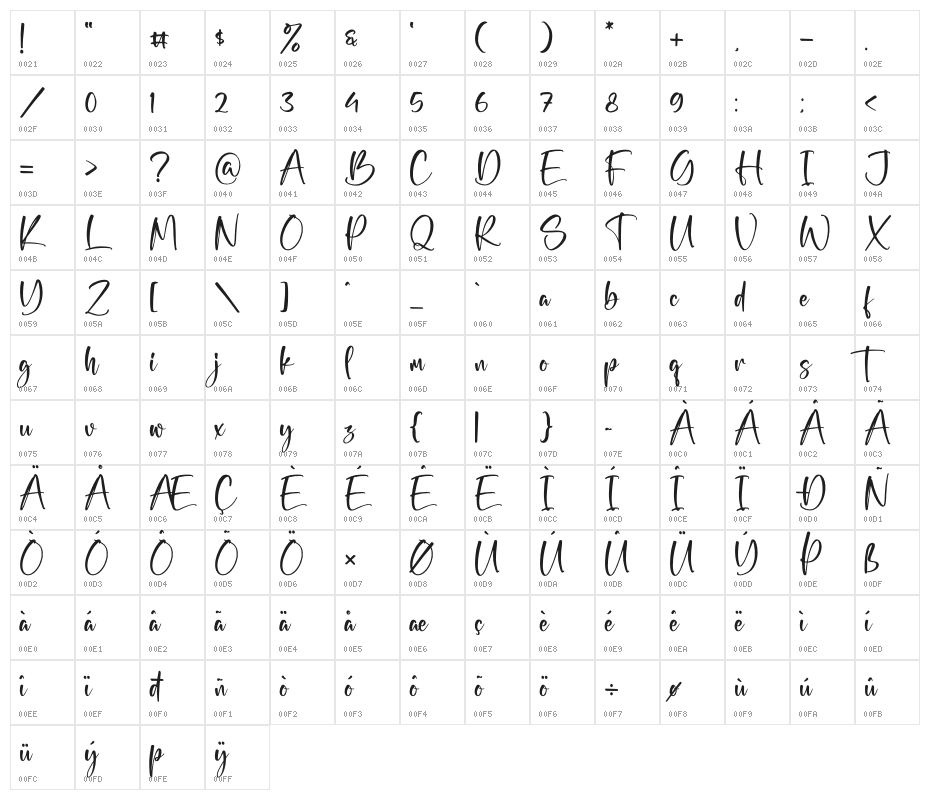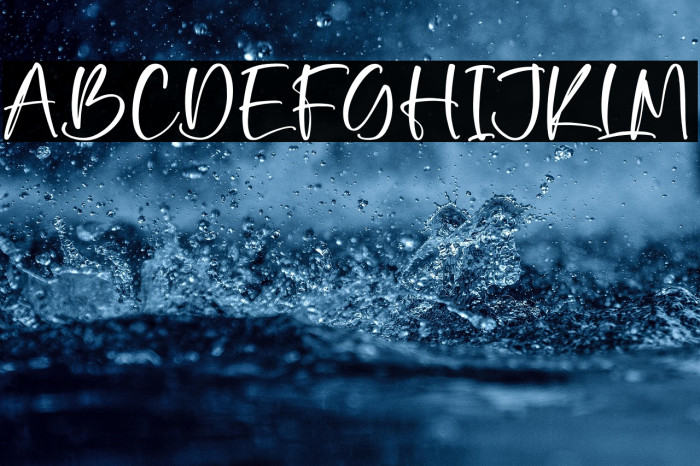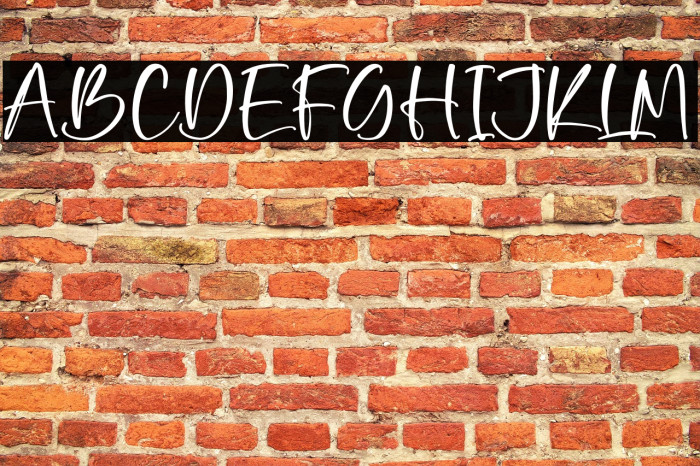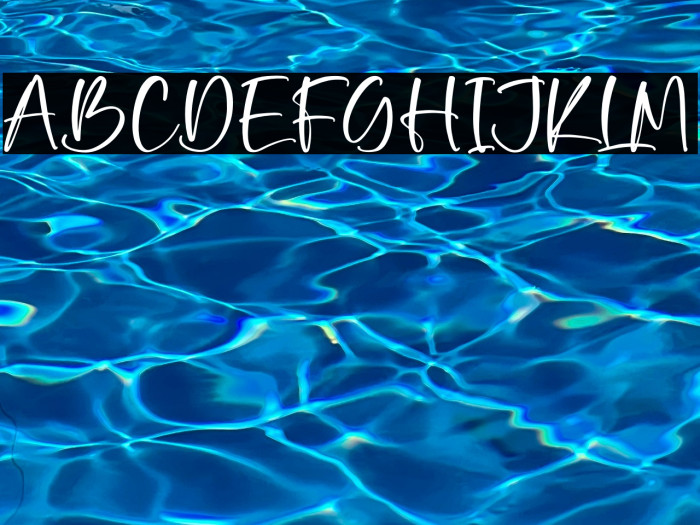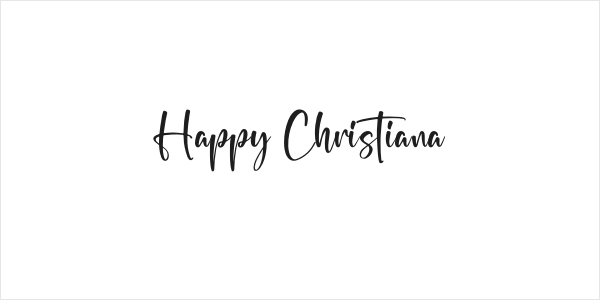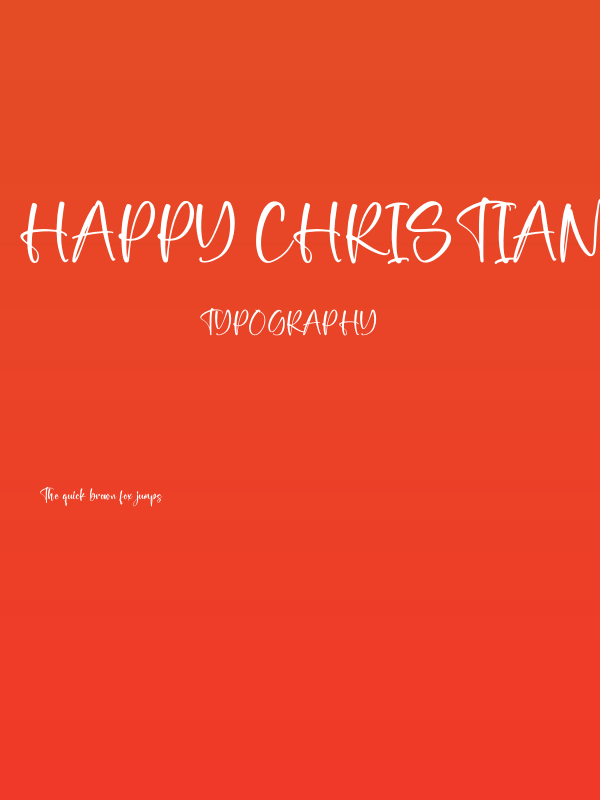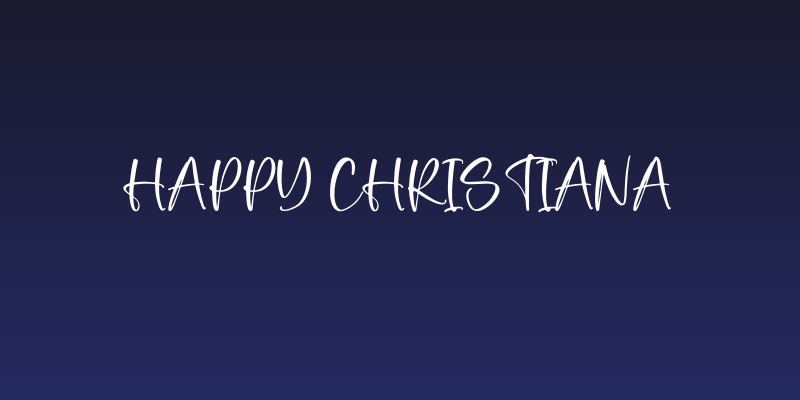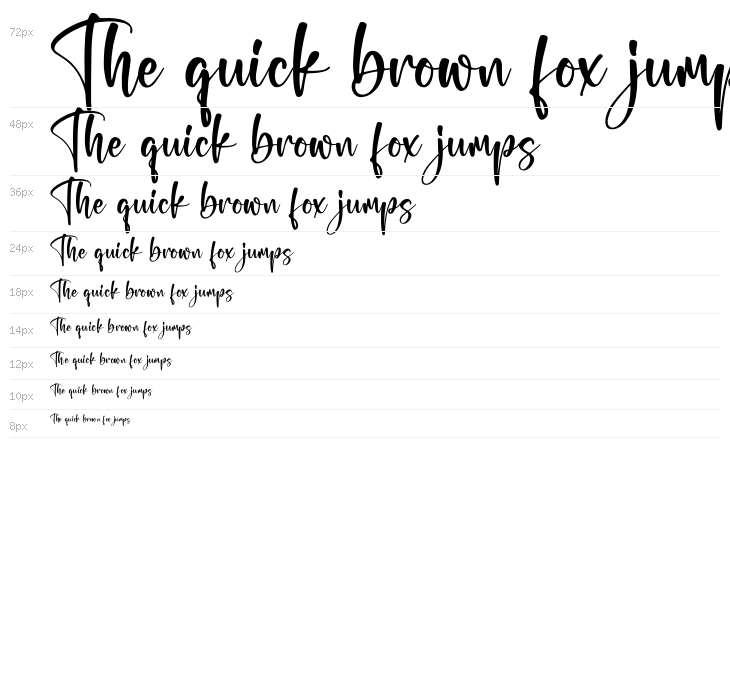
Happy Christiana Font
Happy Christiana Description
A playful, modern handwritten script with fluid, connected strokes and a casual, friendly appearance. The uppercase and lowercase letters are distinct, with varying heights and expressive loops, while numerals and symbols maintain a consistent, organic style.
Overall StyleModern, Decorative, Playful
Use CaseLogos, Headlines, Invitations, Social media posts
Proposed ProjectsGreeting cards, invitations, social media graphics, branding, quotes, and posters.